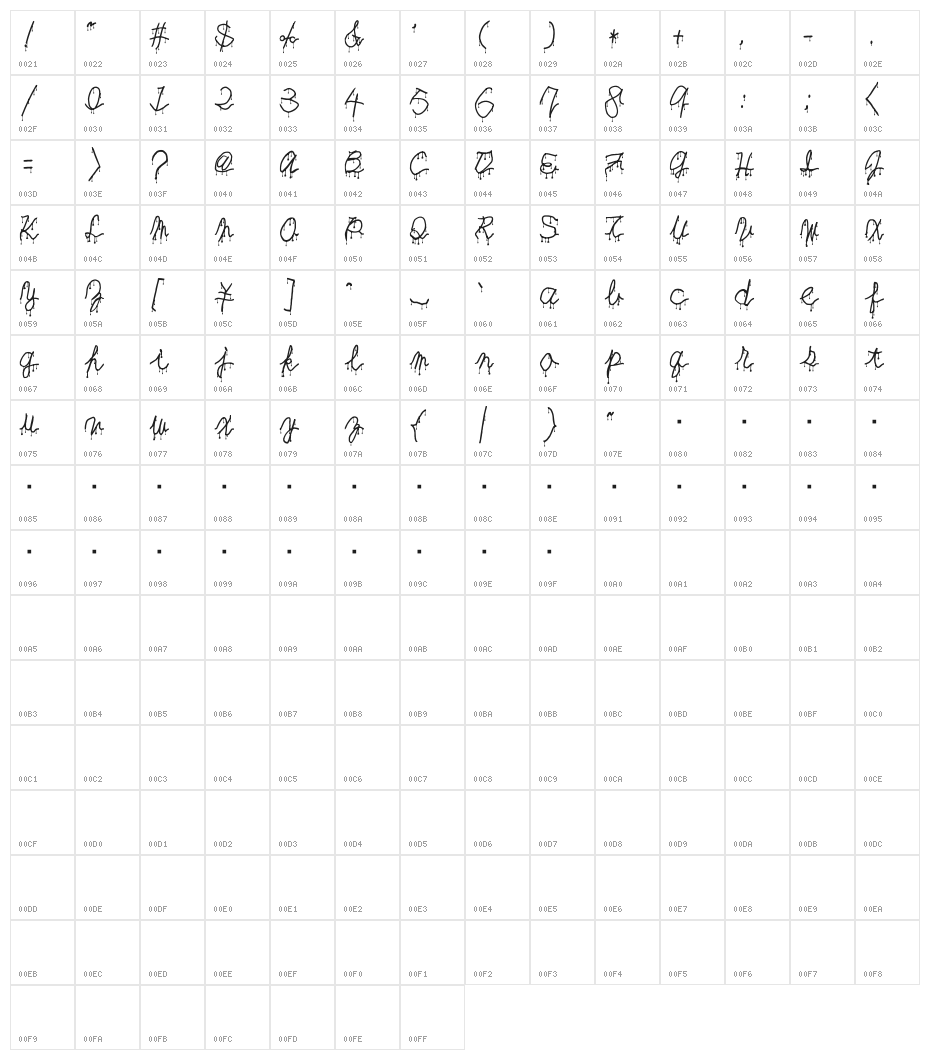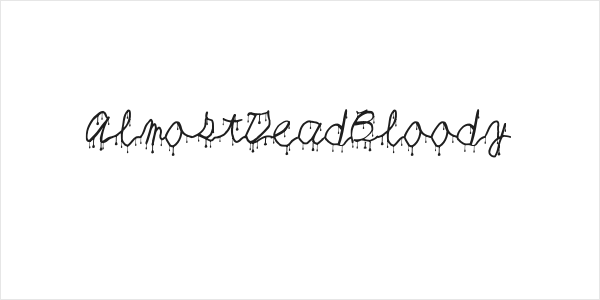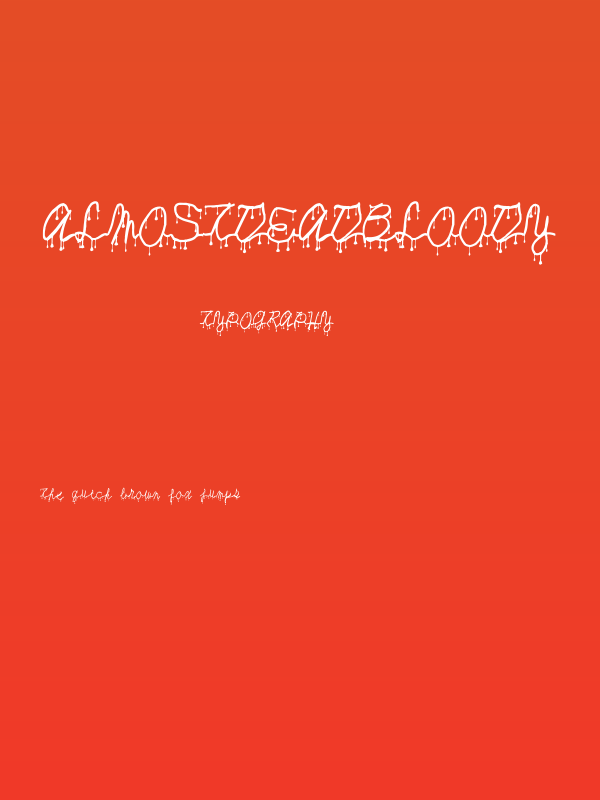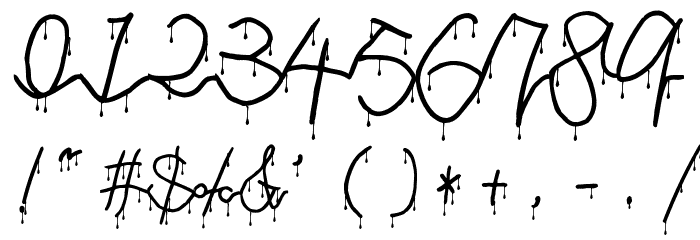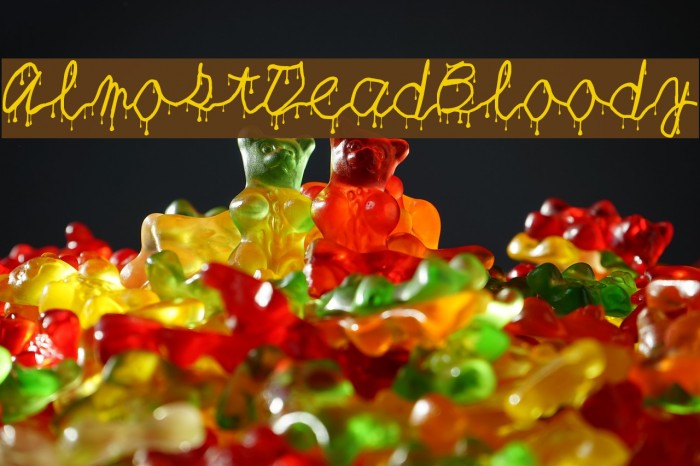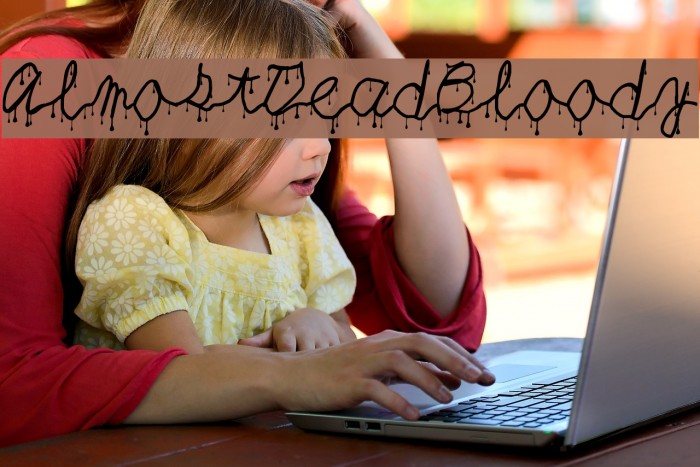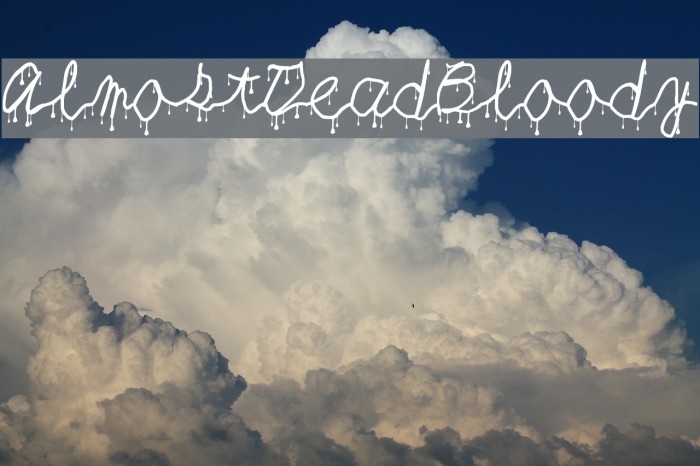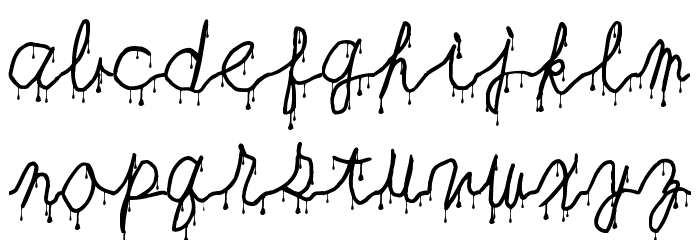
AlmostDeadBloody Font
AlmostDeadBloody Description
This font features a unique and edgy design, characterized by its dripping effect that resembles wet paint or ink. The letters are connected in a cursive style, giving it a fluid and continuous appearance. The uppercase and lowercase letters maintain a consistent flow, while the numbers and special characters also incorporate the dripping motif. This font's distinct style makes it ideal for projects that require a bold and artistic touch, such as horror-themed designs, Halloween invitations, or edgy branding materials. Its decorative nature adds a dramatic flair to any text, making it stand out in various creative applications.
| Proposed Projects | Horror-themed designs, Halloween invitations, edgy branding materials. |